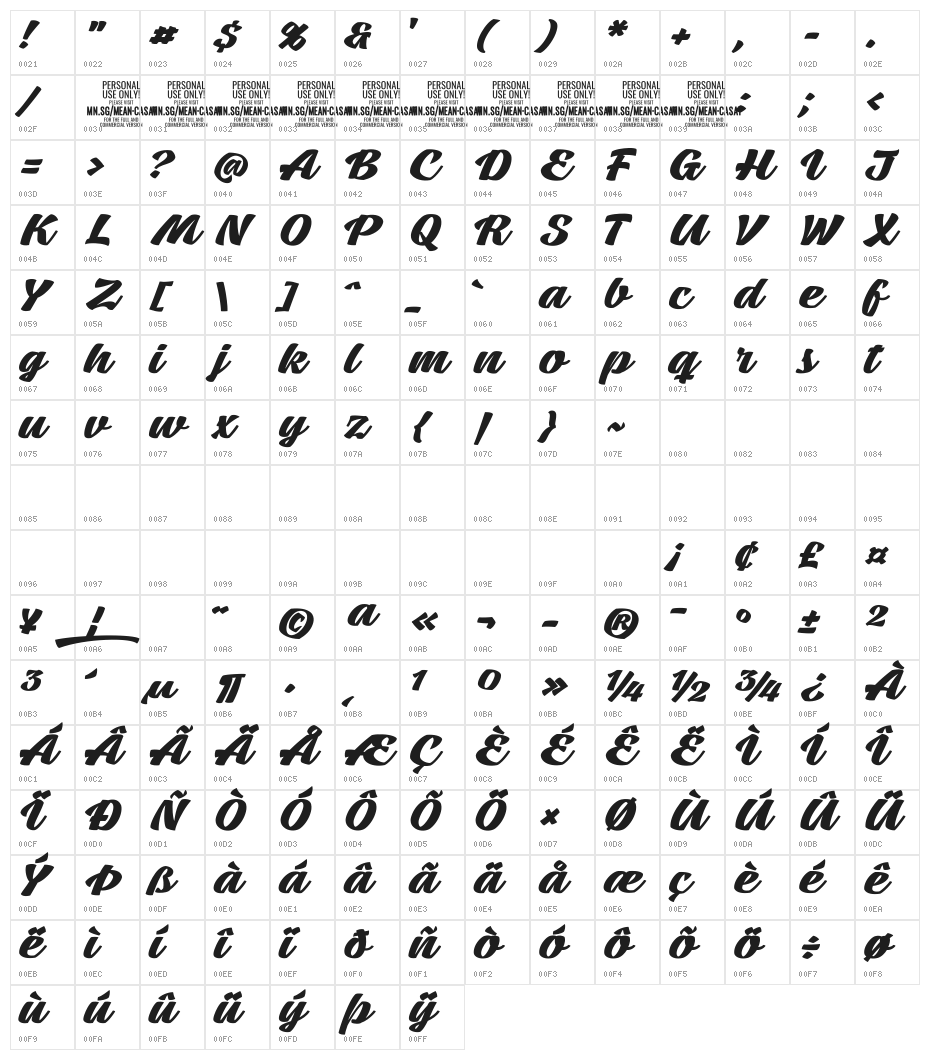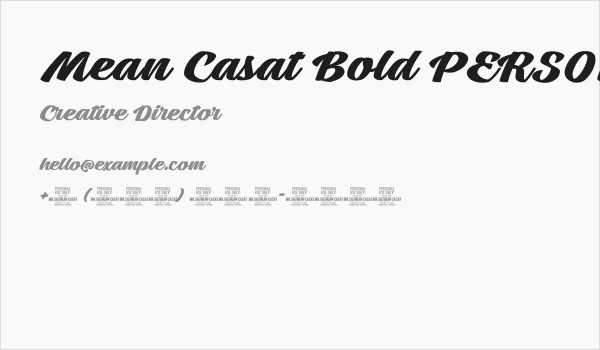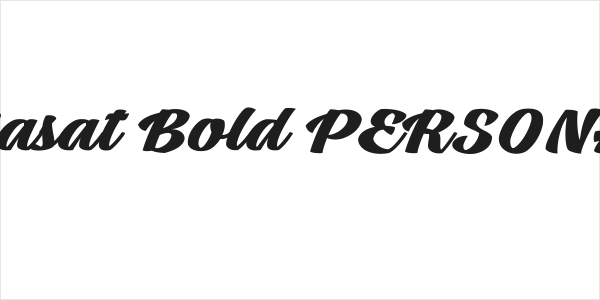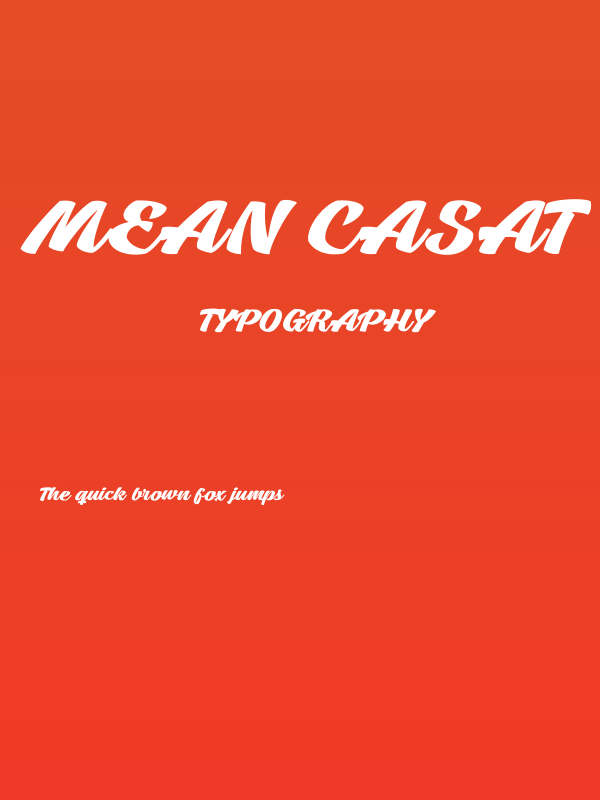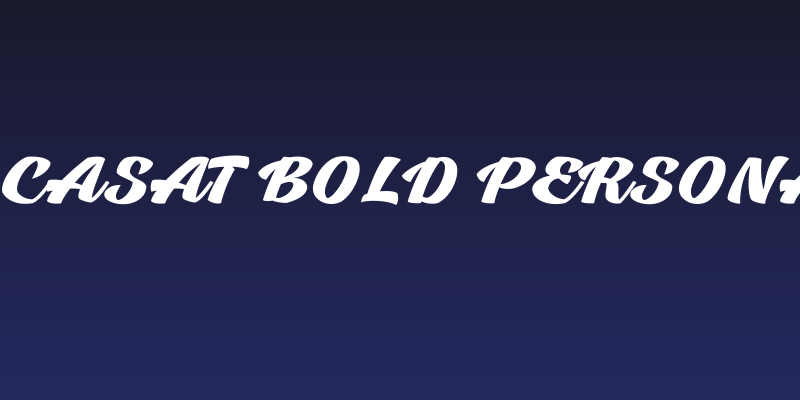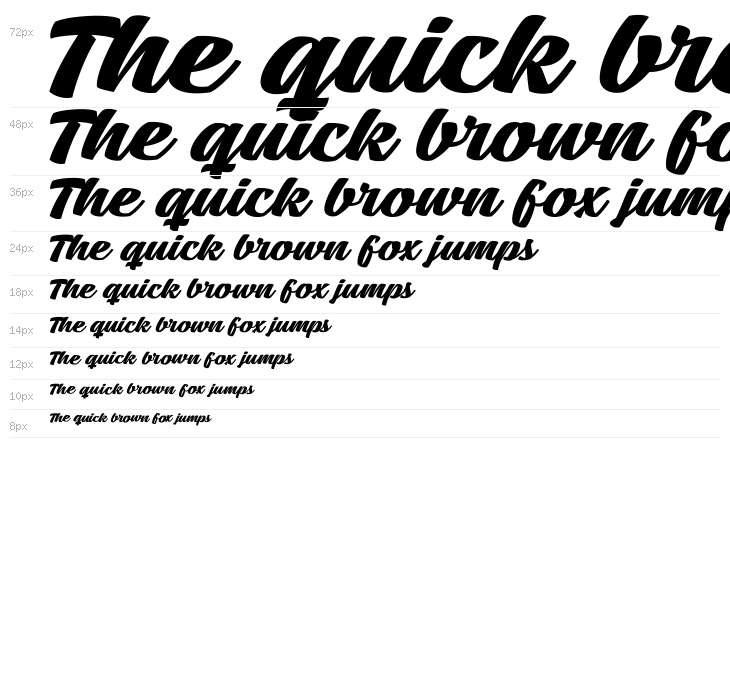
Mean Casat Bold PERSONAL USE Font
Mean Casat Bold PERSONAL USE Description
This font features a bold, dynamic script style with a strong presence. The characters are connected, giving it a fluid and cohesive look. The uppercase letters are slightly larger and more pronounced, while the lowercase letters maintain a consistent flow. The strokes are thick, providing a high contrast that enhances readability and impact. This font exudes a sense of energy and movement, making it suitable for eye-catching designs. The special characters are integrated seamlessly, maintaining the overall aesthetic of the font.
| Proposed Projects | Ideal for branding, logos, headlines, and posters where a strong, energetic presence is desired. |